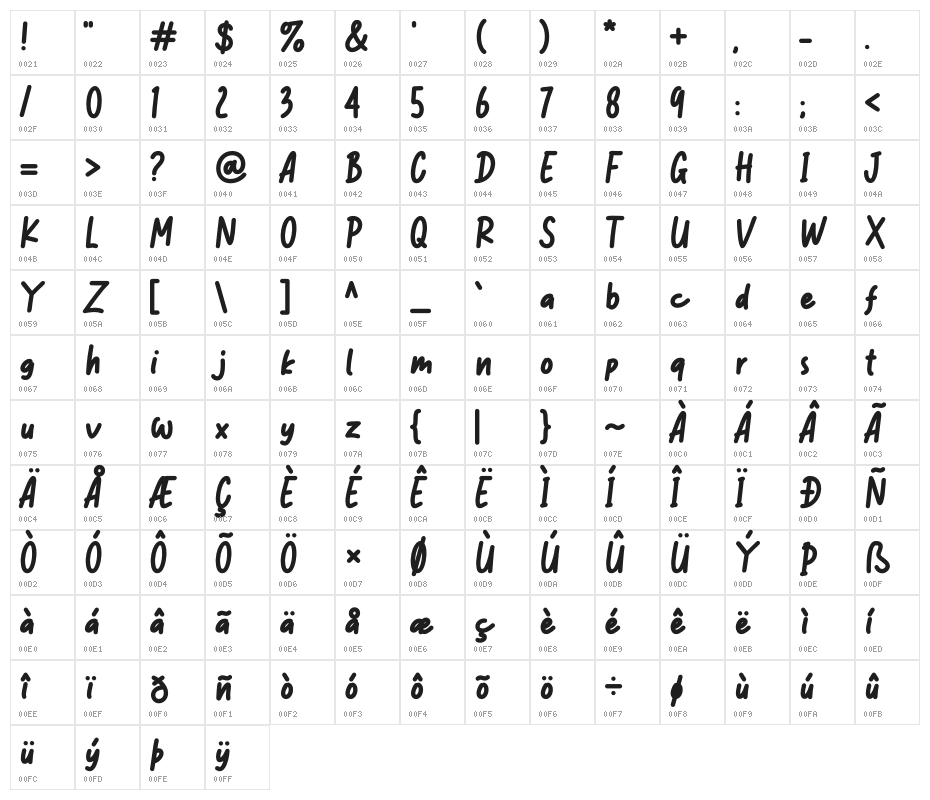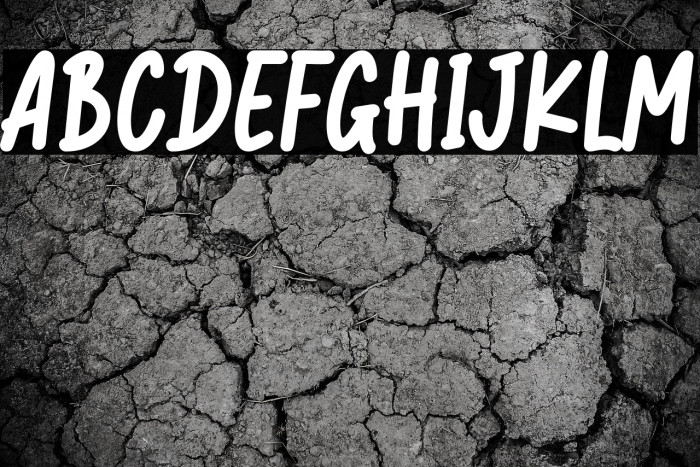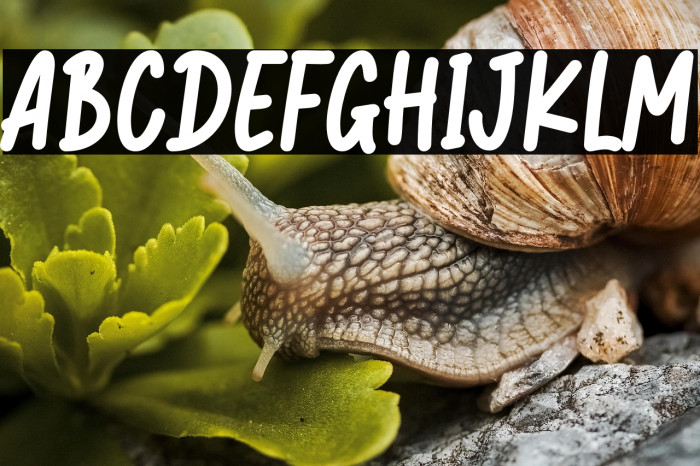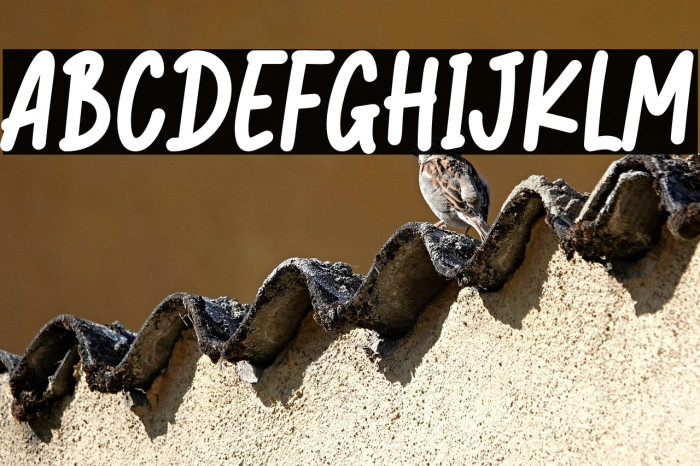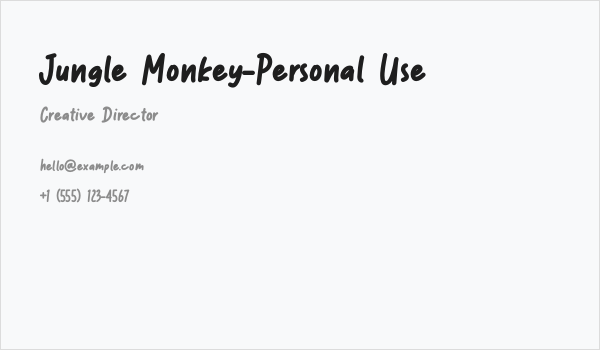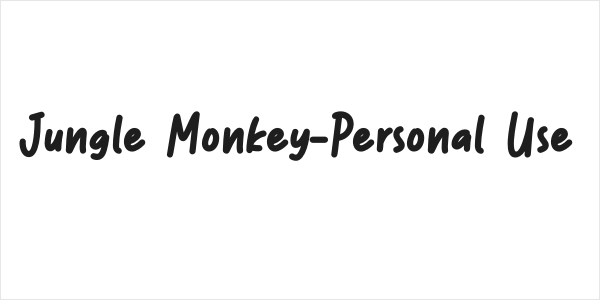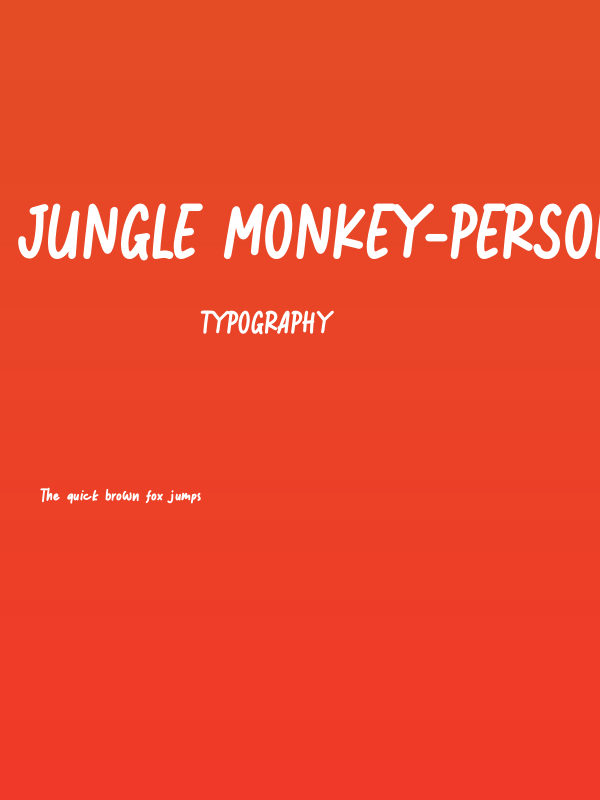
Jungle Monkey-Personal Use Font
Jungle Monkey-Personal Use Description
This playful and energetic font features bold, rounded strokes with a handwritten style that exudes a sense of fun and creativity. The characters are slightly slanted, giving them a dynamic and lively appearance. The uppercase and lowercase letters maintain a consistent style, with smooth curves and a casual flair. Numbers and special characters are designed to match the whimsical nature of the alphabet, making this font ideal for projects that require a touch of personality and charm.
| Overall Style | Playful, Energetic |
| Proposed Projects | Great for children's books, playful branding, greeting cards, and creative posters. |